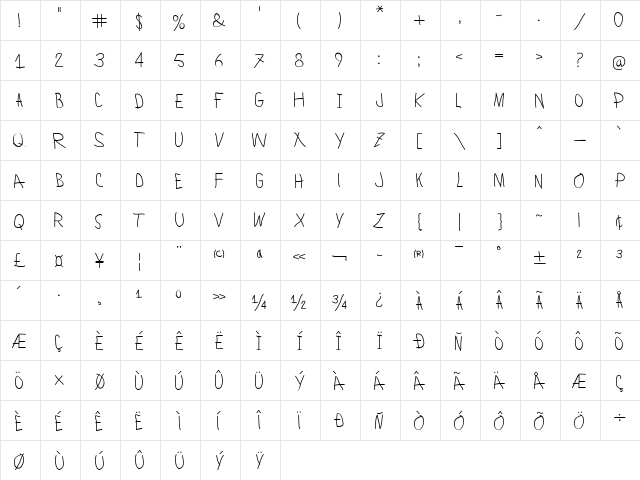
Lamiar Regular
| Foundry | Julia Martinez Diana, Antipixel. |
| Designer | Julia Martinez Diana, Antipixel. |
Design Context for Lamiar Regular Typeface
Lamiar Regular is a composed and adaptable typeface that performs quietly and consistently across a wide range of design contexts.